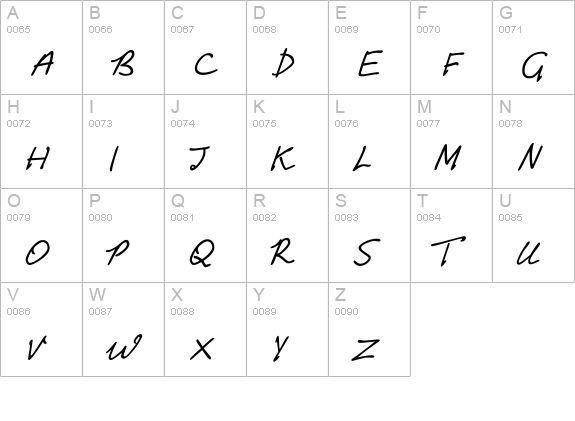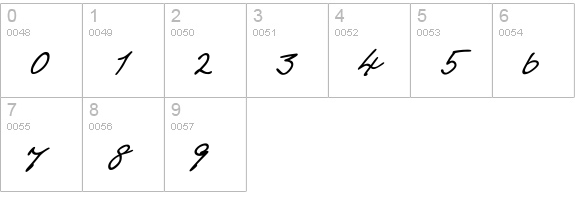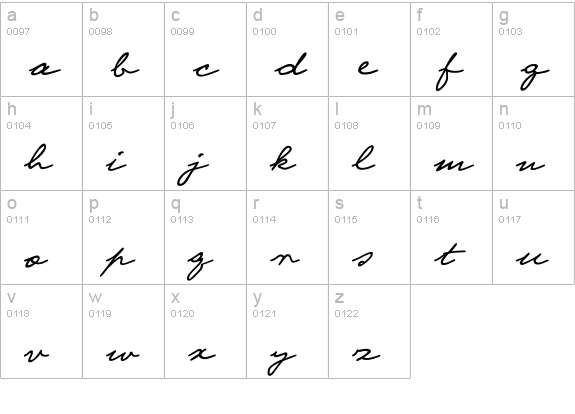
PT Script Ventus is a beautiful and elegant handwritten font that exudes sophistication and charm. Its intricate cursive style adds a touch of luxury to any design project, making it perfect for invitations, greeting cards, logos, and more. The flowing strokes and unique letterforms of PT Script Ventus give it a timeless and classic appeal that is sure to impress. What makes PT Script Ventus even more appealing is that it is available for free download at FontsMarket.com. This means you can easily add this stunning font to your collection without breaking the bank. Whether you are a designer looking to elevate your work or someone wanting to add a touch of elegance to your personal projects, PT Script Ventus is a must-have font that will not disappoint. Download it for free today and see the difference it can make in your designs!